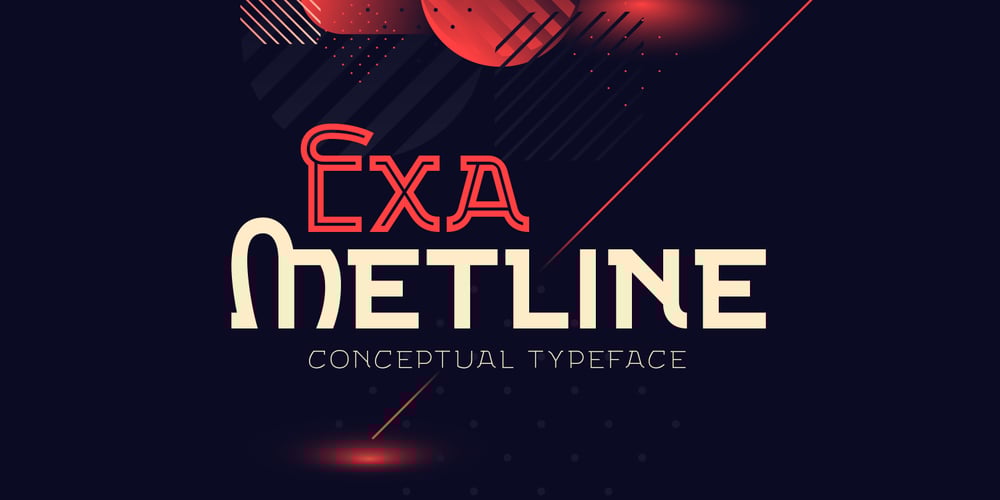
Exa Metline Font Family was designed by Gleb Guralnyk and published by Gleb Guralnyk. Exa Metline contains 3 styles and family package options. Exa Metline is a conceptual font. It’s a modern style geometric typeface with unusual letter shapes. This package consists of 3 fonts with separate inside line layer. Also 10 alternate characters are available, if you’ll need a more familiar letter shapes.Thank you and have a nice day!